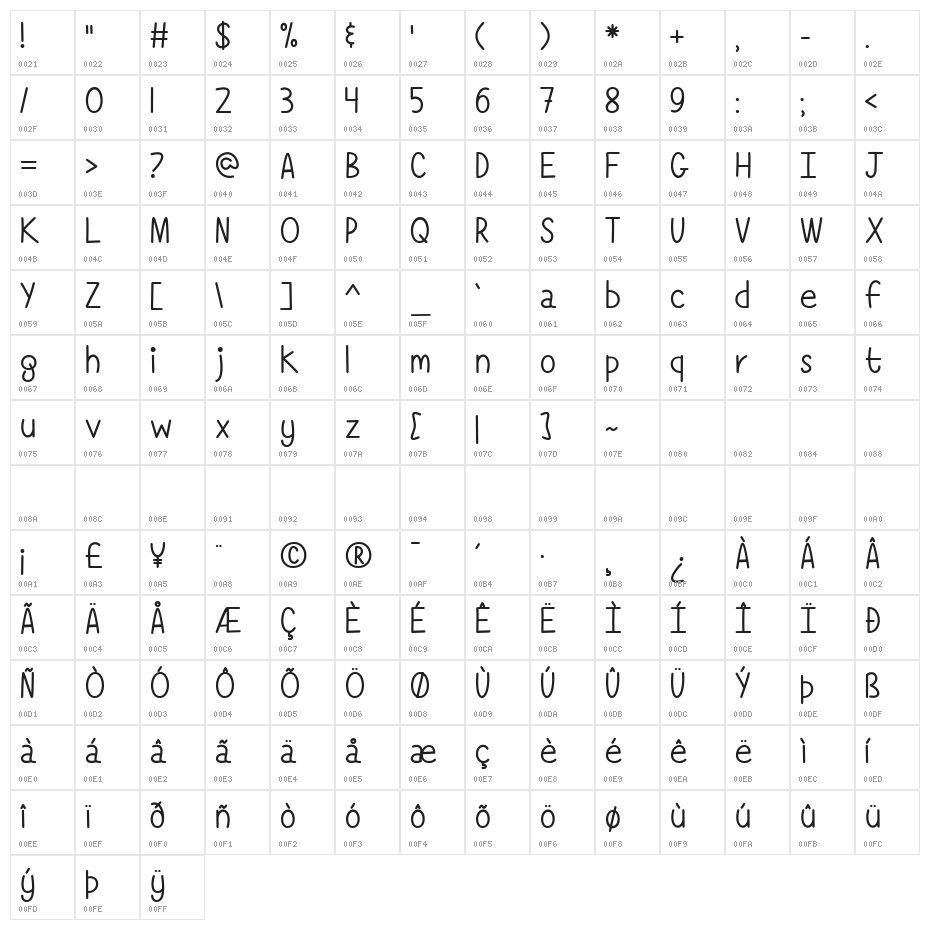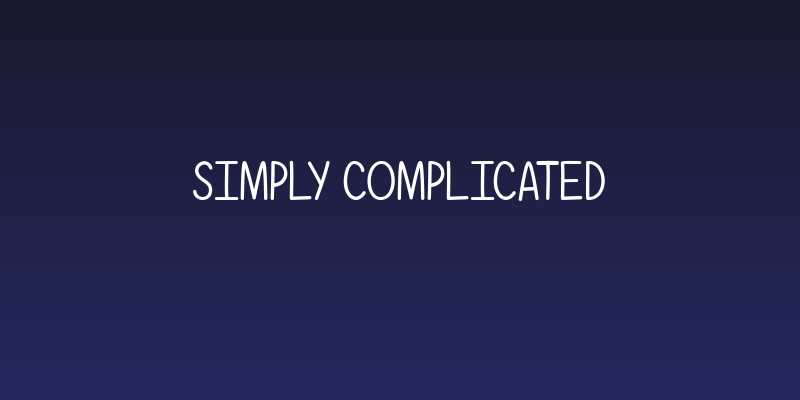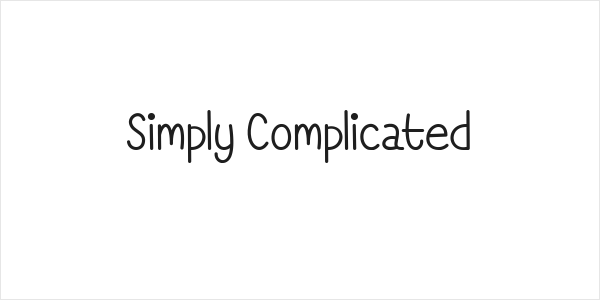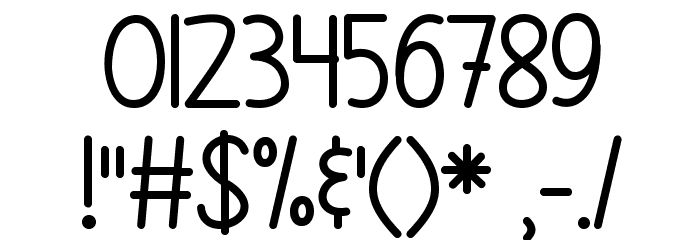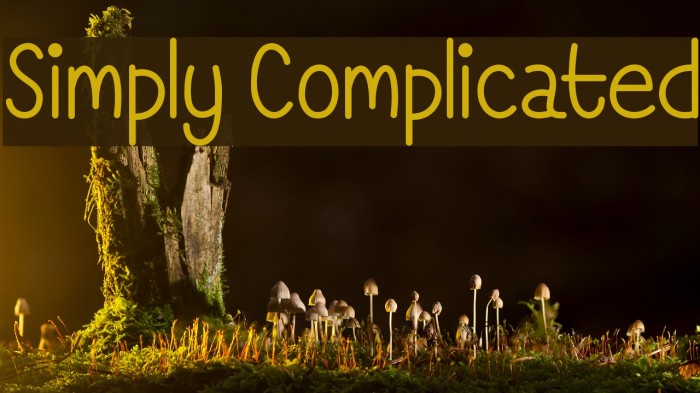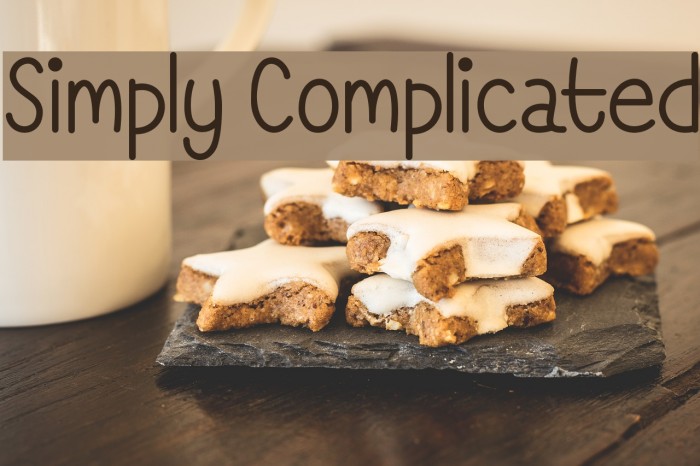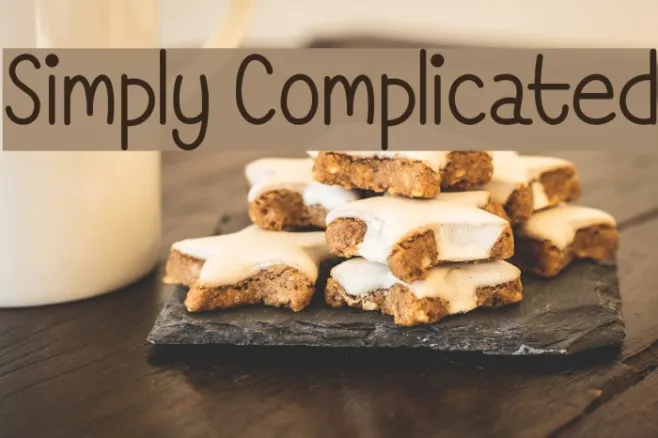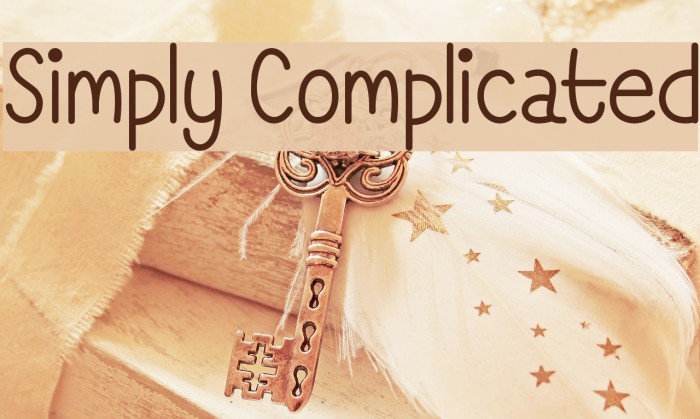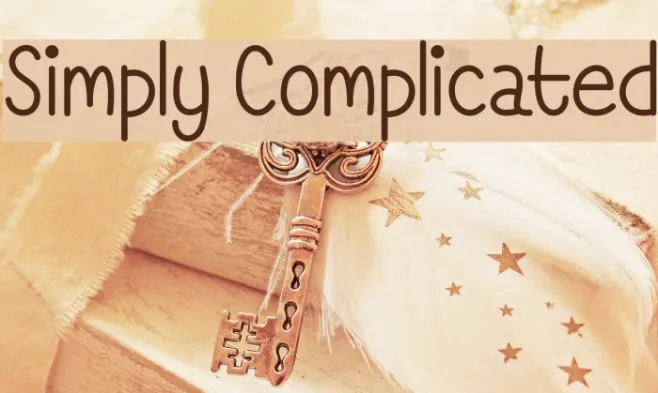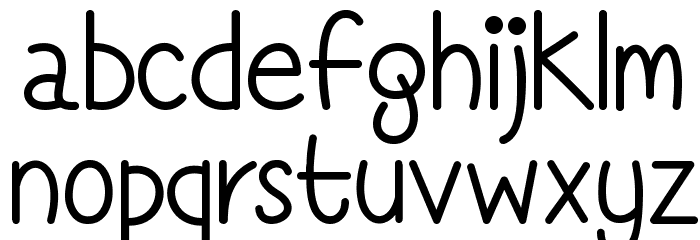
Simply Complicated Font
Simply Complicated Description
This font features a playful and rounded style, characterized by its smooth curves and friendly appearance. The letters are evenly spaced, with a consistent stroke width that gives it a clean and approachable look. The uppercase and lowercase letters maintain a uniform height, contributing to its legibility. Numbers and special characters follow the same rounded aesthetic, making it versatile for various uses. Its simplicity and charm make it suitable for projects that require a casual and inviting tone.
| Proposed Projects | Ideal for children's books, casual branding, greeting cards, and playful packaging designs. |